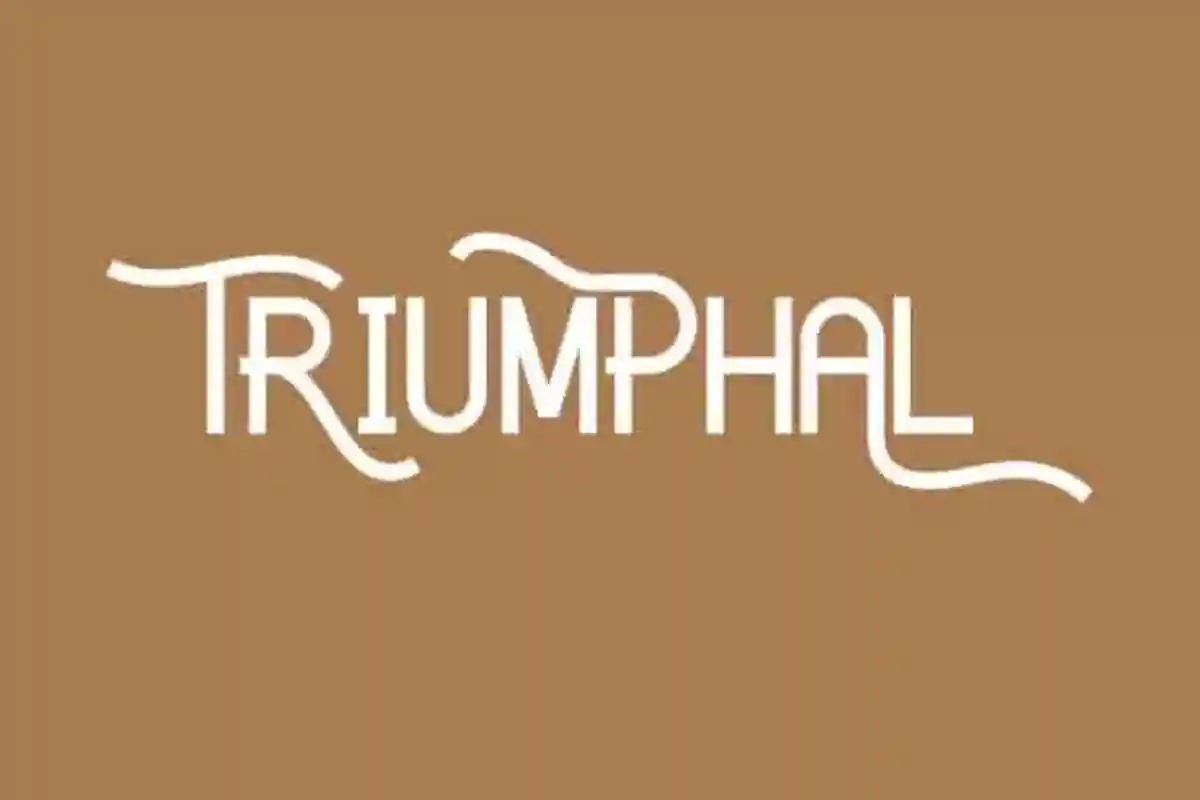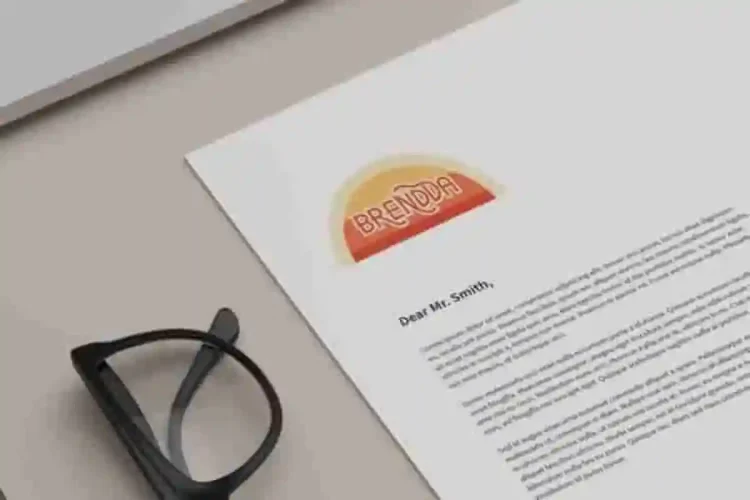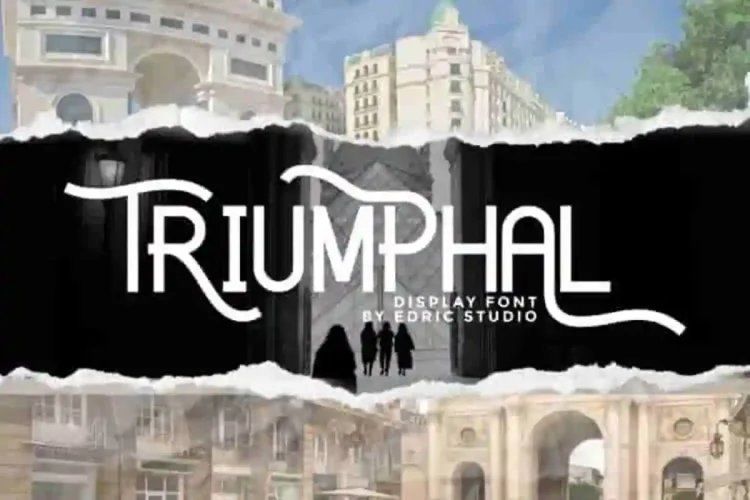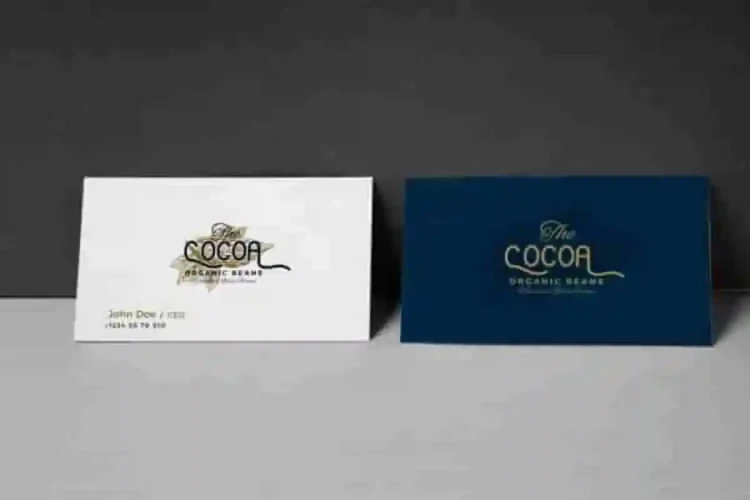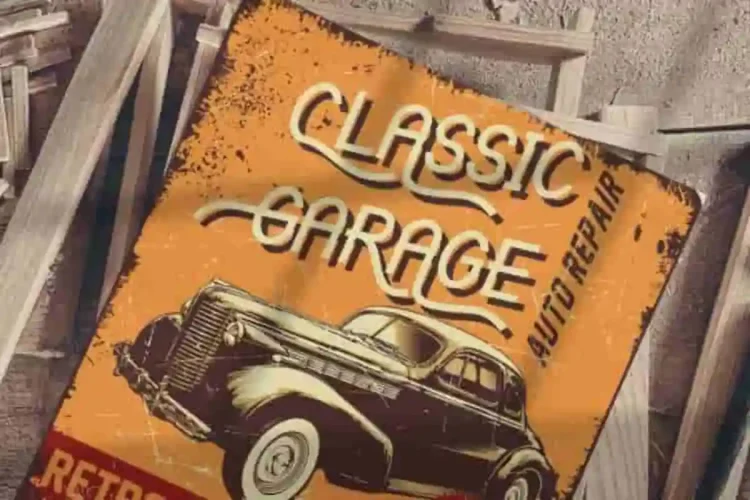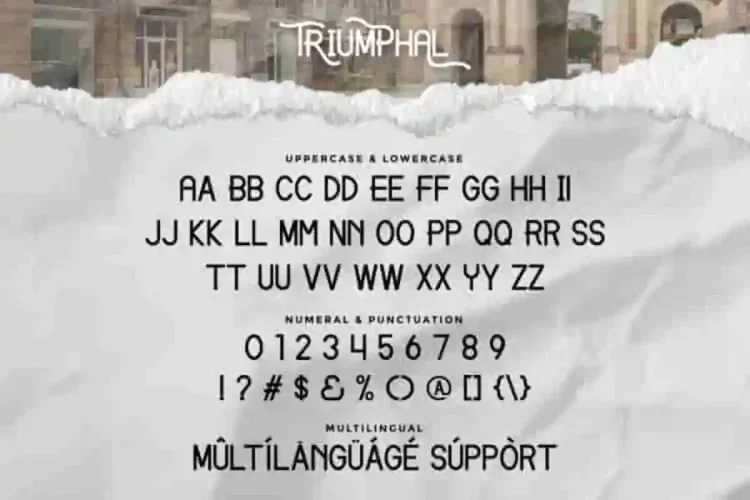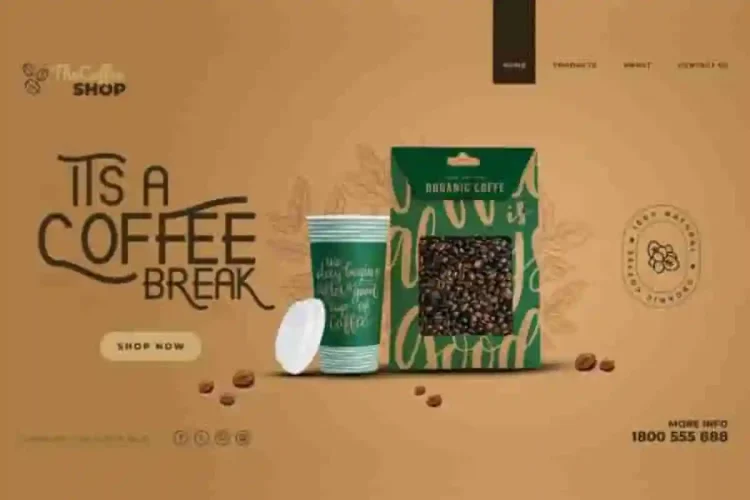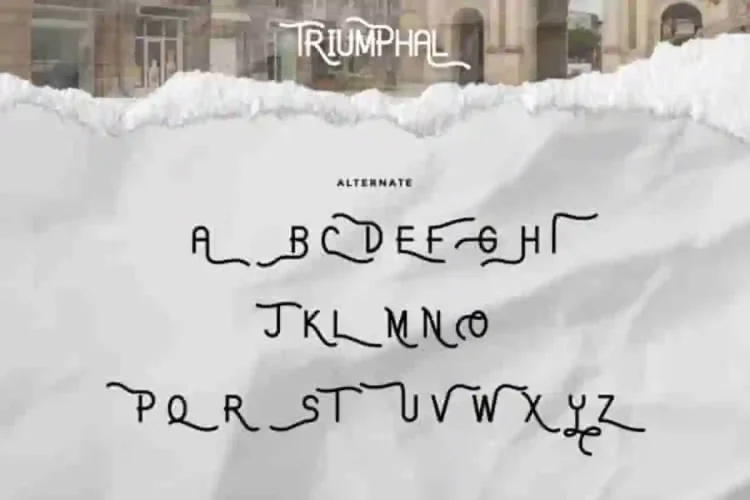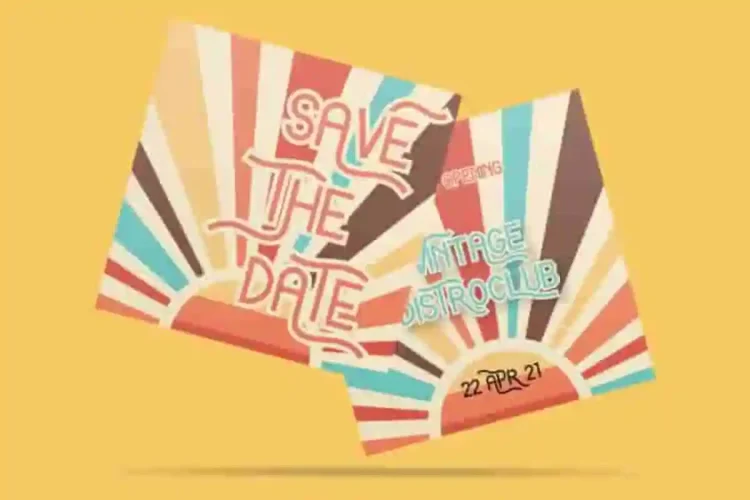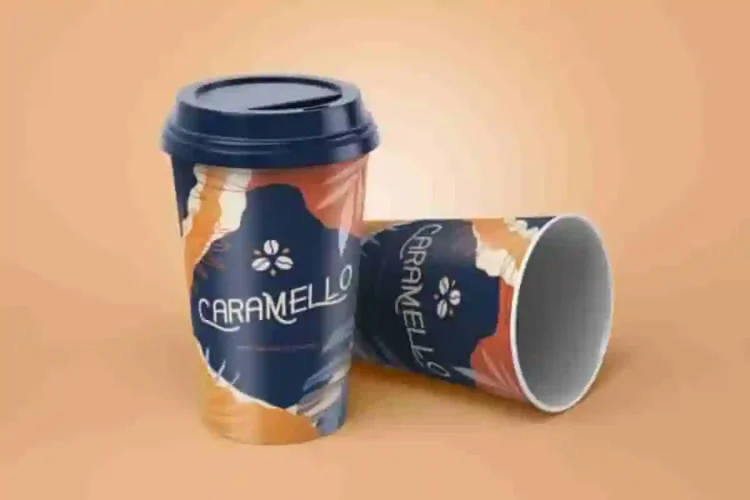
Triumphal Modern Sans Serif Font
Triumphal Modern Sans Serif Font is an old American Sherriff  inspired display font family with unique style. It has beautiful, fresh, elegant, natural and stylish glyphs. Triumphal Luxury Font  will be perfect for branding, logo, photography and headlines etc. This font delivers a timeless and professional finish.
Triumphal Modern Sans Serif Font  comes with stylistic alternates characters as we used on the preview cover, you can explore and use it for extra stunning looks.  The font works on PC & Mac with Simple installations. Accessible in the Adobe Illustrator, Adobe Photoshop, Adobe InDesign, even work on Microsoft Word.  With PUA encoded characters, you can access every glyph without needing additional design software.